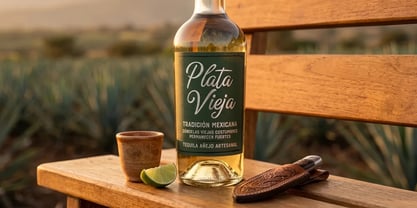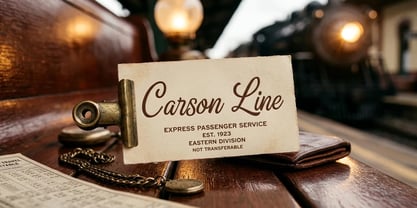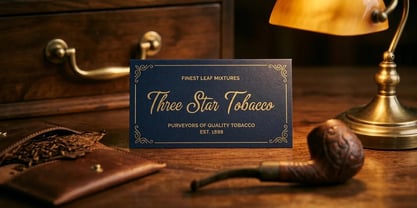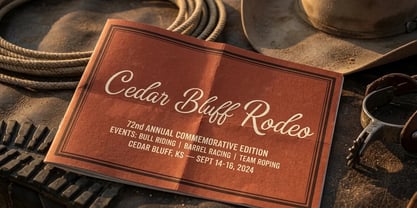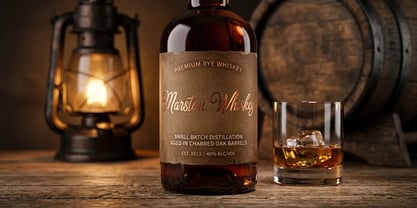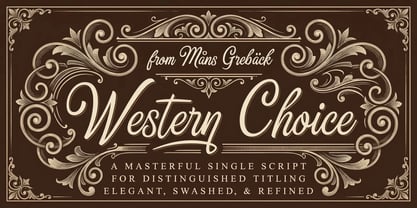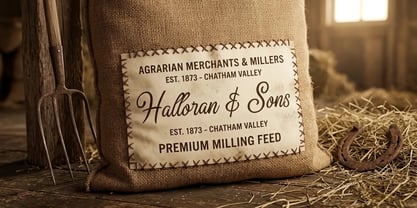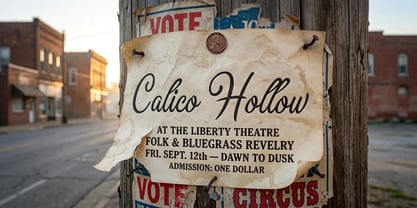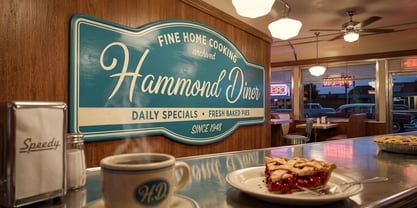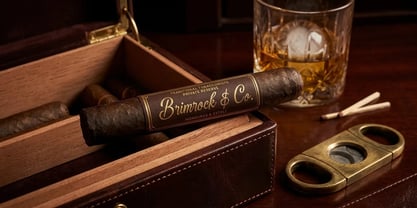
Western Choice
by Mans Greback
Western Choice is a display script with tall capitals and a confident stance.
The capitals carry the line with broad strokes; the lowercase sits tight underneath, letting the upper-case forms do the heavy lifting. There's enough swing in the slant to feel handwritten, but the proportions hold the read-quality of a printed display face. The texture sits closer to a hand-painted trade sign than to studio brushwork.
You can picture it on the face of a small-batch label, or stencilled across the front of an enamelled tin.
The font is built with advanced functionality and guaranteed top-notch quality, containing stylistic and contextual alternates, ligatures and more automatic and manual features; all to give you full control and customizability.
It has extensive lingual support, covering all Latin-based languages, from North Europa to South Africa, from America to South-East Asia. It contains all characters and symbols you'll ever need, including all punctuation and numbers.